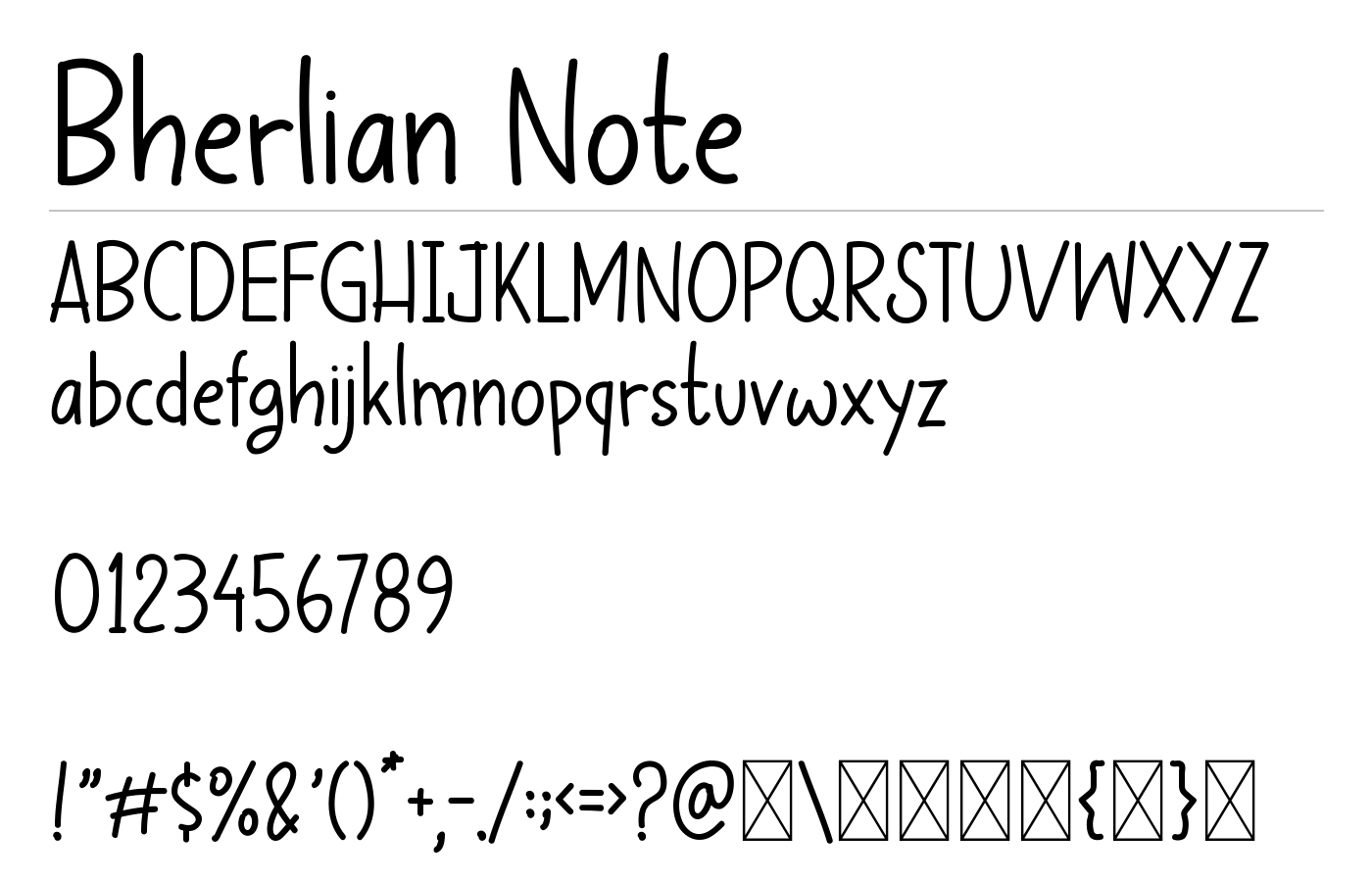
Bherlian Note is a playful, hand-drawn sans serif font with a casual and friendly feel. Its tall, narrow letterforms with uneven strokes and simple curves create an informal, approachable style perfect for personal projects, children’s materials, and creative branding. This font works well for headlines and short text where a warm, handwritten vibe is desired.
Bherlian Note Font
About Bherlian Note Font
| Font family | Bherlian Note Font |